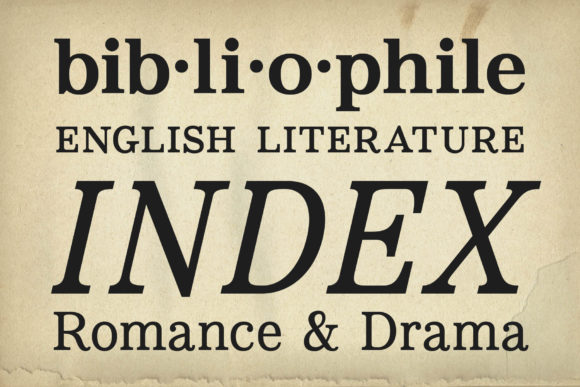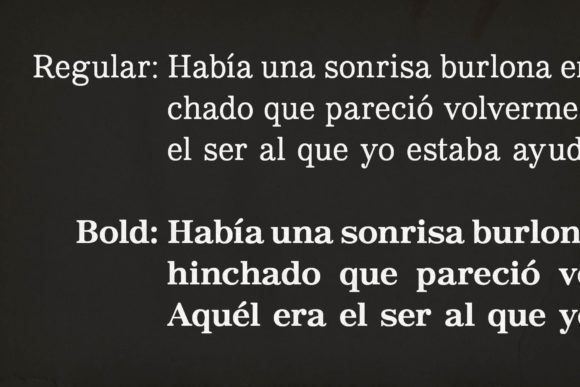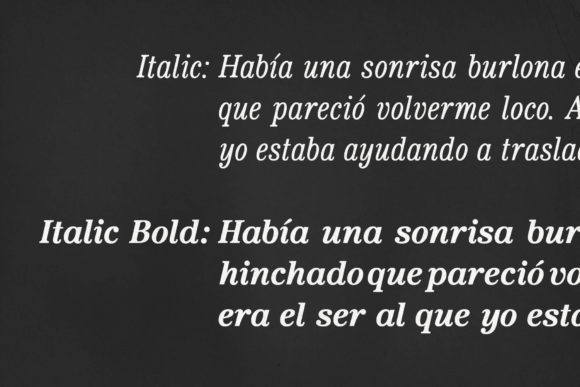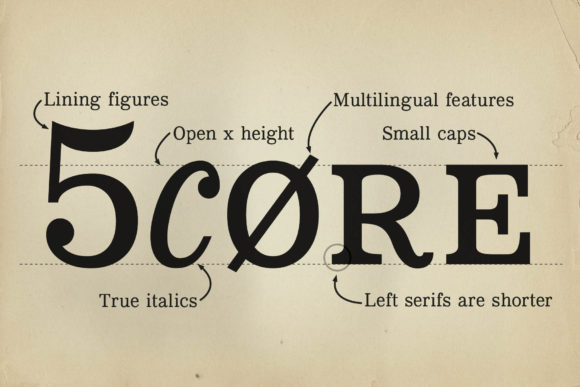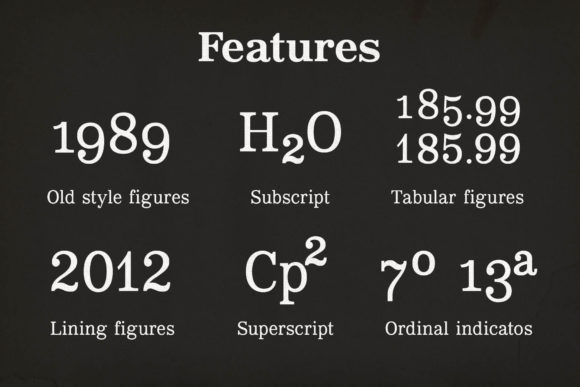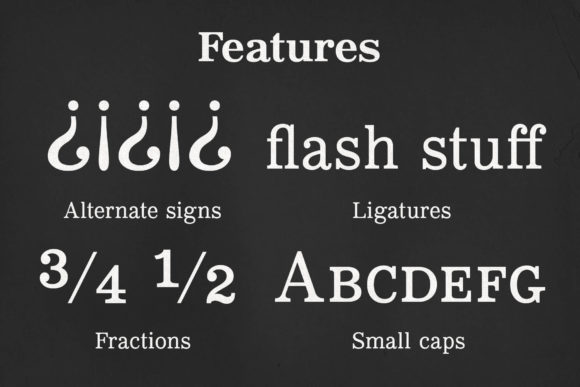
The Perfect Page: Uncovering the Charm of Bookseller Cp Regular Font
There’s something magical about stepping into a used bookstore, surrounded by the musty scent of old pages and the soft glow of reading lamps. As you browse through the shelves, your fingers brush against the spines of worn leather bindings, and you can’t help but feel a sense of nostalgia wash over you. It’s in these moments that we’re reminded of the beauty of traditional typography, and the importance of well-crafted text in creating a lasting impression.
Enter the Bookseller Cp Regular Font, a serif font designed specifically for text at smaller sizes. With its old book feeling and solid shapes, it’s the perfect choice for books, magazines, editorial design, small text, and captions. Whether you’re a designer looking to add a touch of classic elegance to your next project or a book lover seeking to recreate the feel of a vintage novel, the Bookseller Cp Regular Font is a valuable tool in your creative arsenal.
- Unique Characteristics: The Bookseller Cp Regular font features a classic, elegant design with subtle serif details, making it ideal for book titles, headings, and other formal text
Designer Review: Bookseller Cp Regular Font
Overall, I think Bookseller Cp Regular Font is a solid, classic choice for body text. ✨ It’s clear and legible, making it easy to read even at smaller font sizes. The font’s subtle rounded edges and gentle feel give it a friendly, approachable vibe that works well in a variety of contexts.
One of the strengths of Bookseller Cp Regular Font is its flexibility. ✨ It’s a versatile font that can be used in a range of applications, from books and magazines to digital interfaces and web design. It’s also highly customizable, making it a great choice for designers who want to add their own unique twist to the font.
However, I do think there are a few limitations to consider. ⚠️ For one, the font may not be as attention-grabbing as some other choices. It’s a solid, dependable font, but it may not be the best choice if you’re looking to make a bold statement. Additionally, some users may find the font’s rounded edges to be a bit too rounded, giving it a slightly dated feel.
Here are some key pros and cons to consider:
- Legible and clear, even at small font sizes
- Flexible and versatile, suitable for a range of applications
- May not be as attention-grabbing as some other choices
- Some users may find the rounded edges to be too rounded
Overall, I think Bookseller Cp Regular Font is a solid choice for designers who want a dependable, classic font that’s easy to read and customize. Just be aware of the potential limitations, and use it in contexts where its strengths will shine through.
Tips for Getting the Most Out of Bookseller Cp Regular Font
Use Bookseller Cp Regular Font for titles, headings, and other display text to create a clean and modern look.
Combine Bookseller Cp Regular Font with other fonts to create a unique and eye-catching design.
Experiment with different font sizes, colors, and styles to create a visually appealing design.
Alternatives to Bookseller Cp Regular Font
Bodoni 72 Oldstyle
Bodoni 72 Oldstyle is a serif font with a classic feel, making it suitable for traditional and elegant designs. It’s ideal for use in publishing, advertising, and editorial content. In comparison to Bookseller Cp Regular Font, Bodoni 72 Oldstyle has a more formal and refined look, while Bookseller Cp Regular Font has a more casual and modern feel.
Merriweather is a classic serif font with a traditional feel, making it suitable for use in books, magazines, and other printed materials. It’s also a good choice for web design, as it’s highly legible even at small font sizes. Compared to Bookseller Cp Regular Font, Merriweather has a more formal and traditional look, while Bookseller Cp Regular Font is more modern and casual.